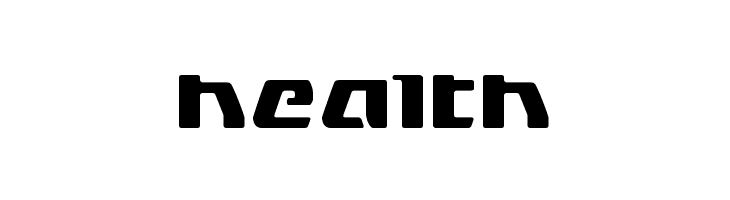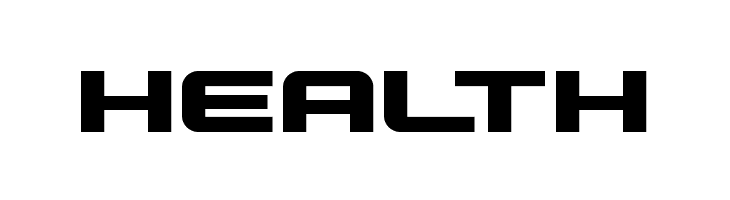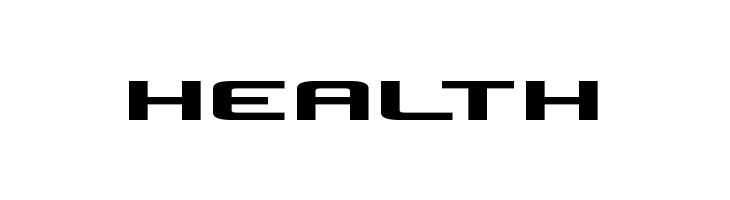
A bold, left-slanted font with wide, blocky characters and sharp angles.
A bold, condensed font with a strong, modern presence.
A bold, italic font with a dynamic and modern style.
A bold, 3D font with geometric shapes and a shadow effect.
A bold, italicized, and condensed font with a modern, dynamic style.
A bold, italic font with a futuristic and dynamic style.
A bold, 3D italic font with outlined characters and a modern, dynamic style.
A bold, blocky font with rounded edges and a strong presence.
A sleek, italicized font with a modern, aerodynamic design.
A sleek, modern font with a futuristic and italicized design.
A sleek, italic font with a futuristic and dynamic design.
A sleek, modern font with geometric lines and a futuristic aesthetic.
A sleek, modern, and condensed font with a futuristic aesthetic.
A futuristic, geometric font with condensed and angular letterforms.
A bold, futuristic font with geometric and angular design elements.
A futuristic, 3D geometric font with hollow, outlined characters.
A bold, expanded, and futuristic font with geometric shapes and sharp angles.
A futuristic, geometric font with bold, angular characters and expanded width.
A bold, 3D geometric font with a futuristic and outlined style.
A bold, futuristic font with angular, slanted characters and a modern aesthetic.
A futuristic, italicized font with expanded, angular letterforms.
A futuristic, angular font with sharp edges and a dynamic slant.
A futuristic italic font with sharp, angular lines and a dynamic, modern style.
A bold, condensed font with a futuristic, geometric design.
A futuristic and geometric font with sharp angles and bold presence.
A bold, italic, and futuristic font with angular, slanted characters.
A futuristic, condensed italic font with sharp angles and a sleek design.
A sleek, modern, condensed italic font with high contrast and dynamic style.
A futuristic, geometric font with a condensed and bold design.
A sleek, italicized font with a futuristic and dynamic design.
A modern, italicized font with a sleek and dynamic appearance.
A futuristic, italicized, and condensed font with sharp angles and sleek lines.
A futuristic, 3D italic font with outlined characters and geometric shapes.
A bold, italic, futuristic font with angular, geometric characters.
A futuristic, geometric font with bold, angular letterforms and a condensed width.